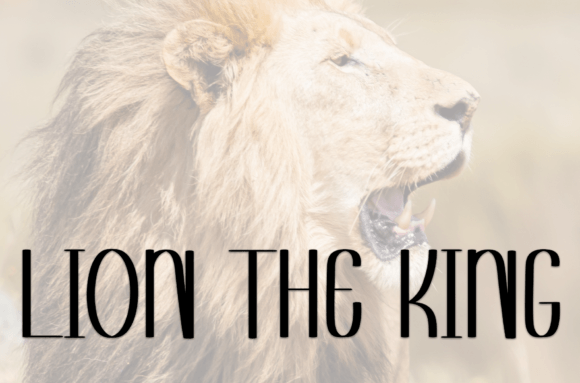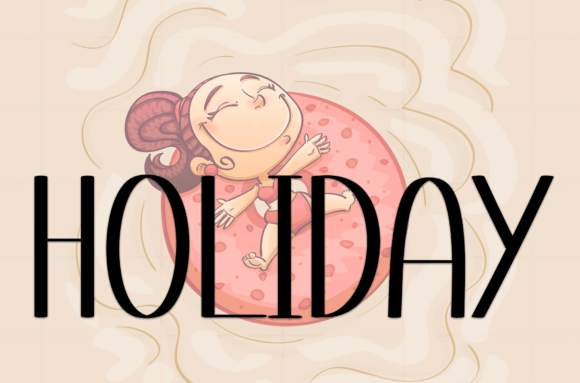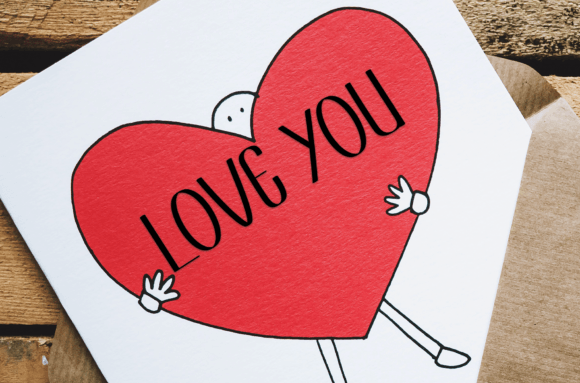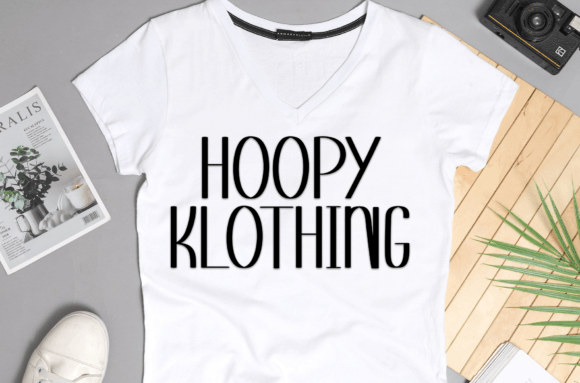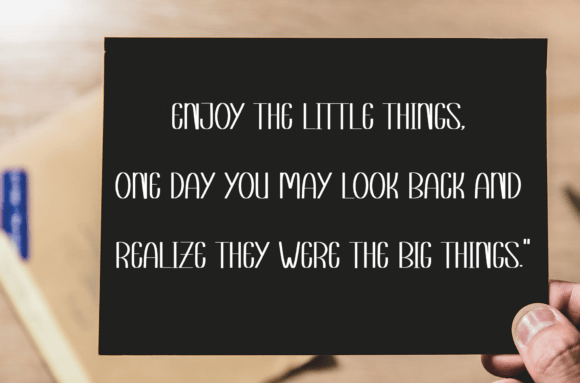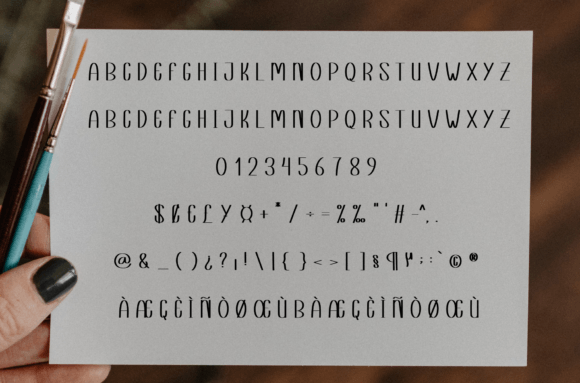
Starting Your Day with a Delicious Twist: Breakfast Font
Have you ever found yourself staring at a blank page, surrounded by scattered ideas and a dash of creativity? That’s where the magic happens, and sometimes, all it takes is the right font to spark your imagination. For designers and crafty individuals, finding the perfect font can be a game-changer. And that’s exactly what Breakfast Font is all about – adding a sweet and friendly touch to your designs.
Born to be playful and charming, Breakfast Font is a handwritten font that’s perfect for writing wedding invitations, cards, or any other design that needs a fun and lighthearted feel. Its creative and cute style makes it a valuable addition to any designer’s toolkit, allowing them to bring a smile to their audience’s faces with just a few strokes of the pen.
Breakfast Font Key Features
- Font Family: Breakfast Font is a sans-serif font family designed by Monotype.
- Font Styles: The font family includes various styles, such as Regular, Italic, Bold, and Bold Italic, providing versatility for different design applications.
- Unique Characteristics: Breakfast Font features a unique, rounded sans-serif design with subtle flair at the terminals, giving it a friendly and approachable feel.
Breakfast Font Review
At first glance, Breakfast Font seems like a quirky and fun addition to any design project. The font is meant to evoke a sense of morning breakfast and features a playful, hand-drawn style. ✨ I love how the font’s imperfections and irregularities add to its charm.
Here are a few things that Breakfast Font does well:
- ✨ It’s perfect for creating a whimsical and carefree atmosphere in designs.
- ✨ The font is highly customizable, allowing designers to adjust its color, size, and spacing to suit their needs.
- ✨ The font’s hand-drawn style makes it stand out from more traditional, computer-generated fonts.
- ⚠️ The font may not be suitable for formal or professional designs, as it can come across as childish or unpolished.
- ⚠️ The font’s irregularities can make it difficult to read in certain contexts, particularly at small font sizes.
- ⚠️ The font may not be as versatile as more traditional fonts, which can limit its use in certain design projects.
Overall, I think Breakfast Font is a fun and creative addition to any design project. While it may not be suitable for every design context, it’s perfect for creating a playful and whimsical atmosphere. With some careful consideration and customization, designers can make the most of this unique font.
Use Breakfast Font for:
1. Food-related designs, such as restaurant menus or food blogs.
2. Retro-style designs, such as vintage advertisements or posters.
3. Whimsical designs, such as children’s books or greeting cards.
For best results, use Breakfast Font in bold or italic styles to add emphasis to your text.